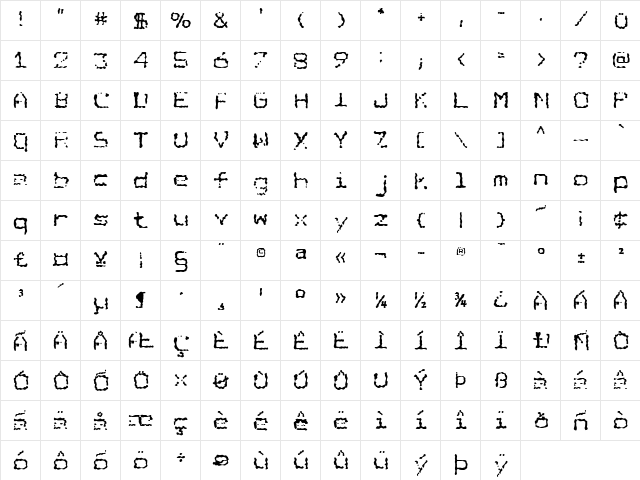
HouseCopy Medium Font Preview
HouseCopy Medium
HouseCopy Medium Font Details
| Foundry | Brand Design Co., Inc |
Design Context for HouseCopy Typeface
HouseCopy is a composed and adaptable typeface that performs quietly and consistently across a wide range of design contexts.